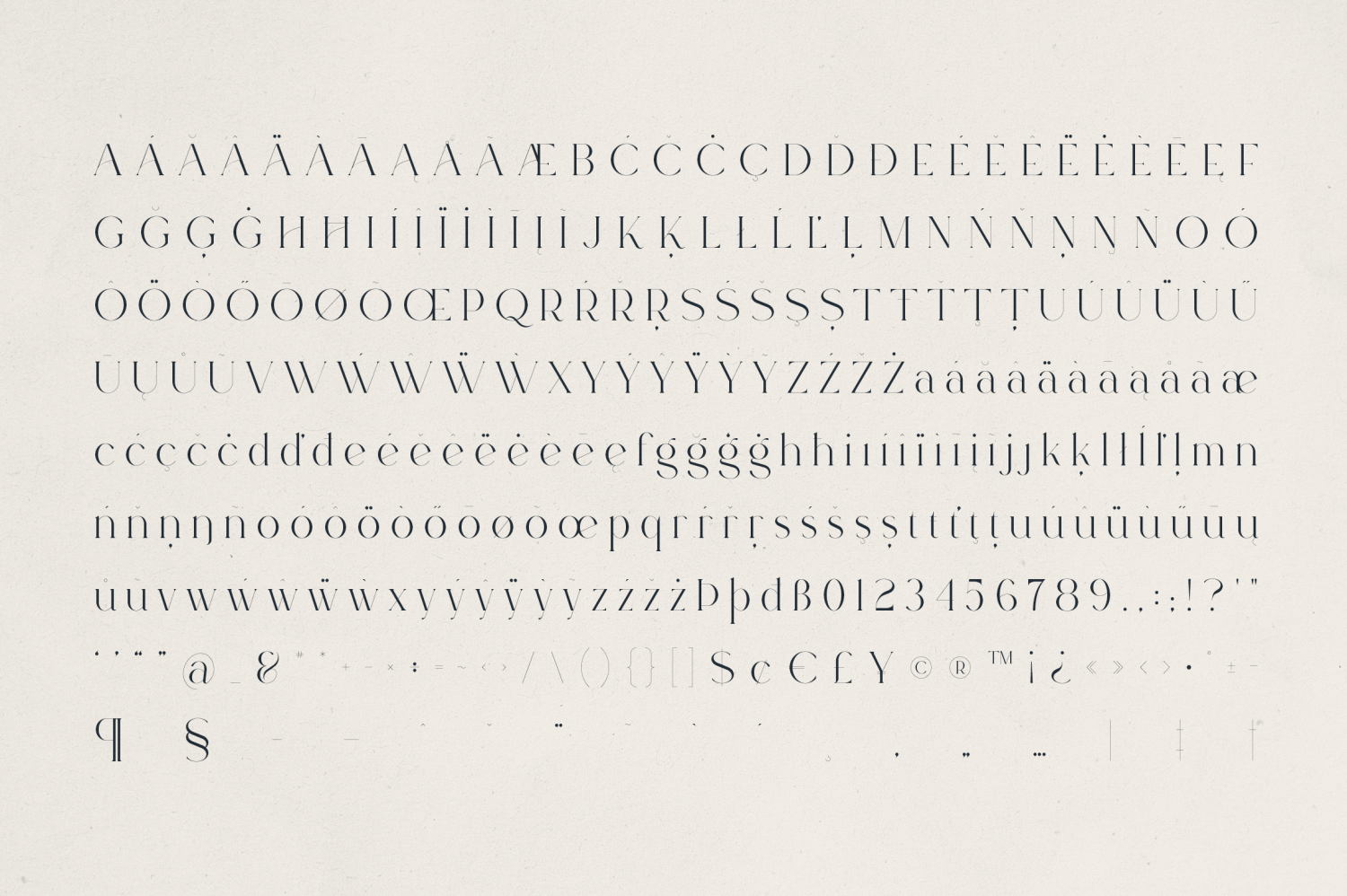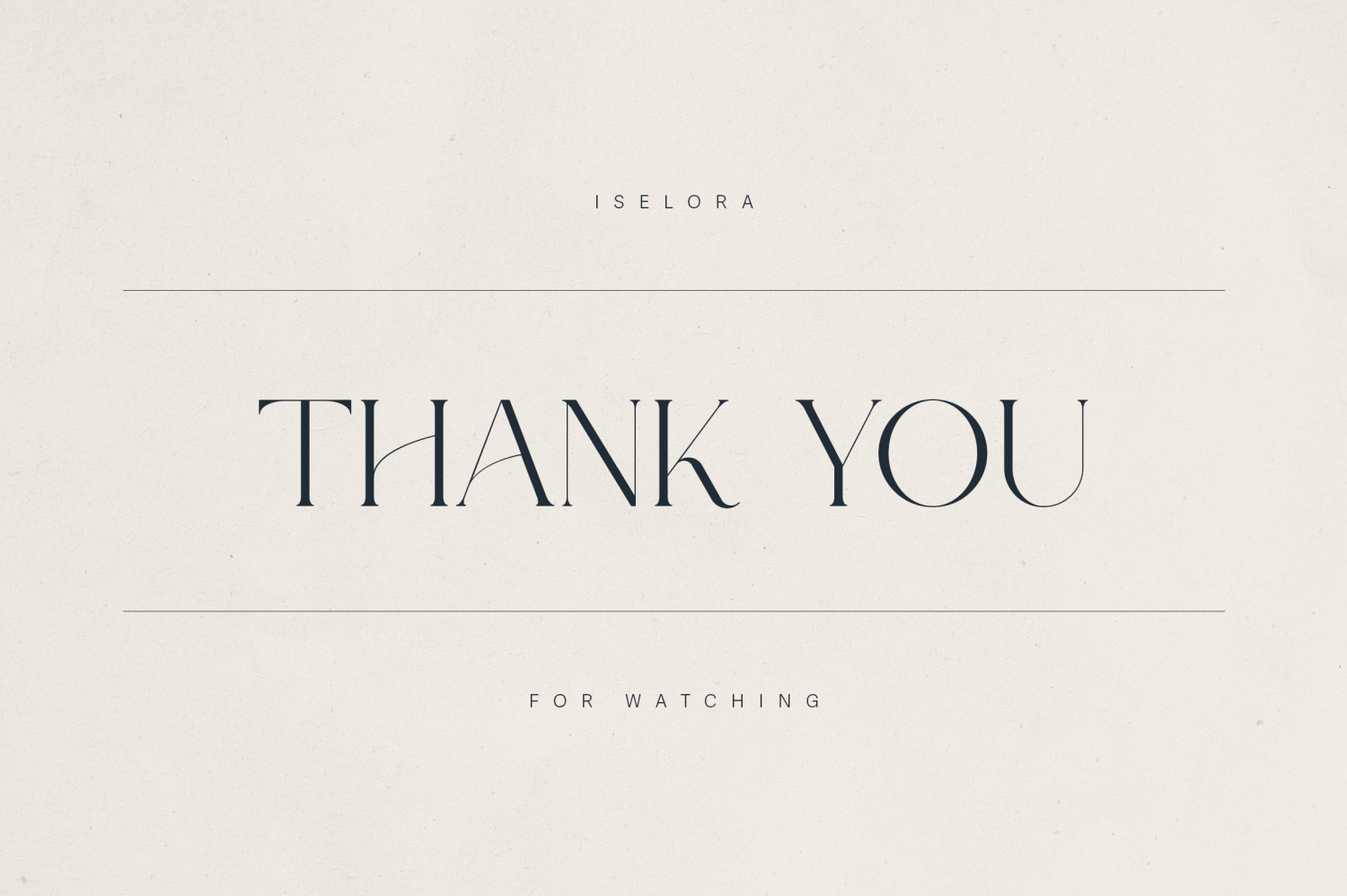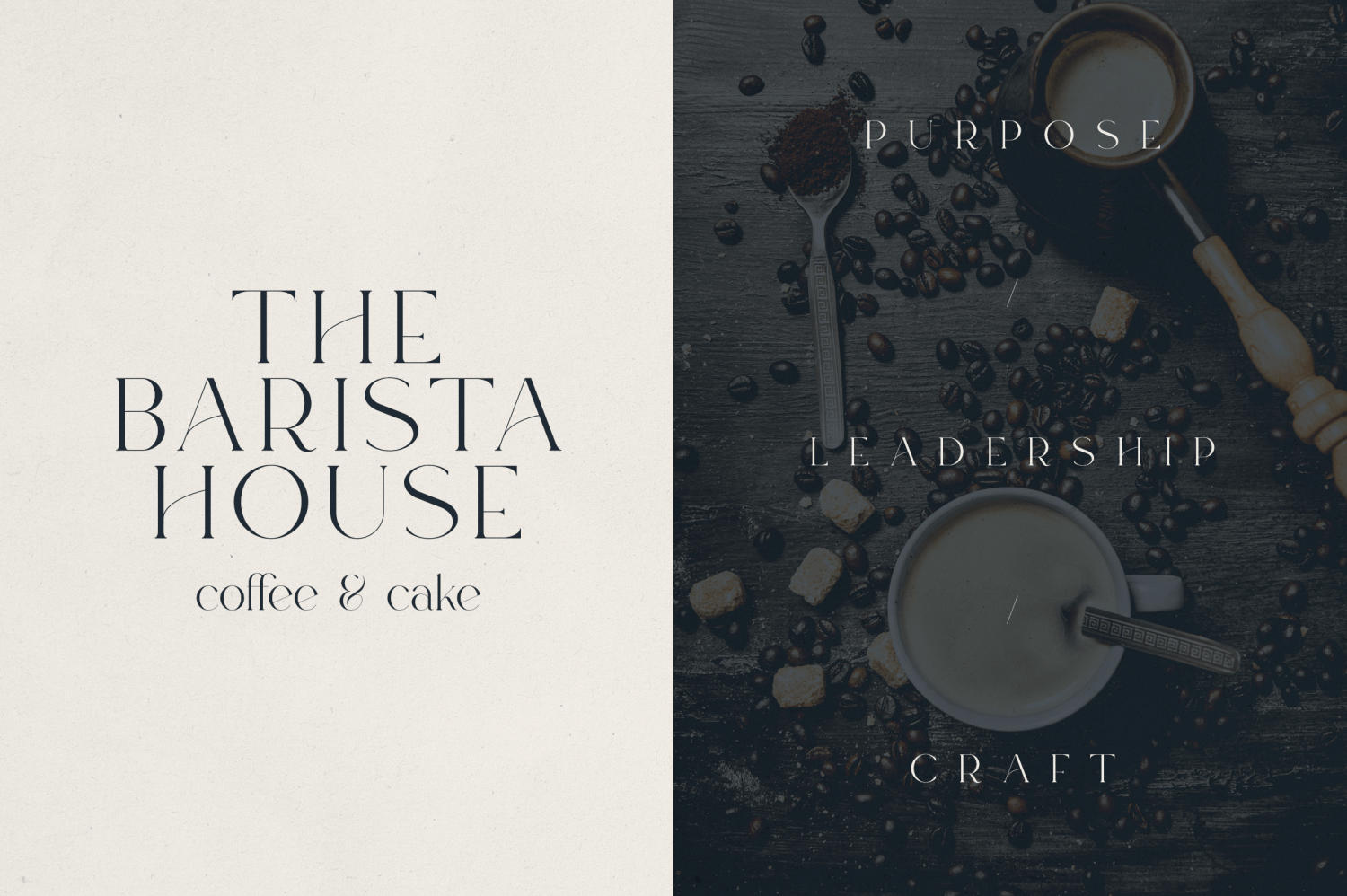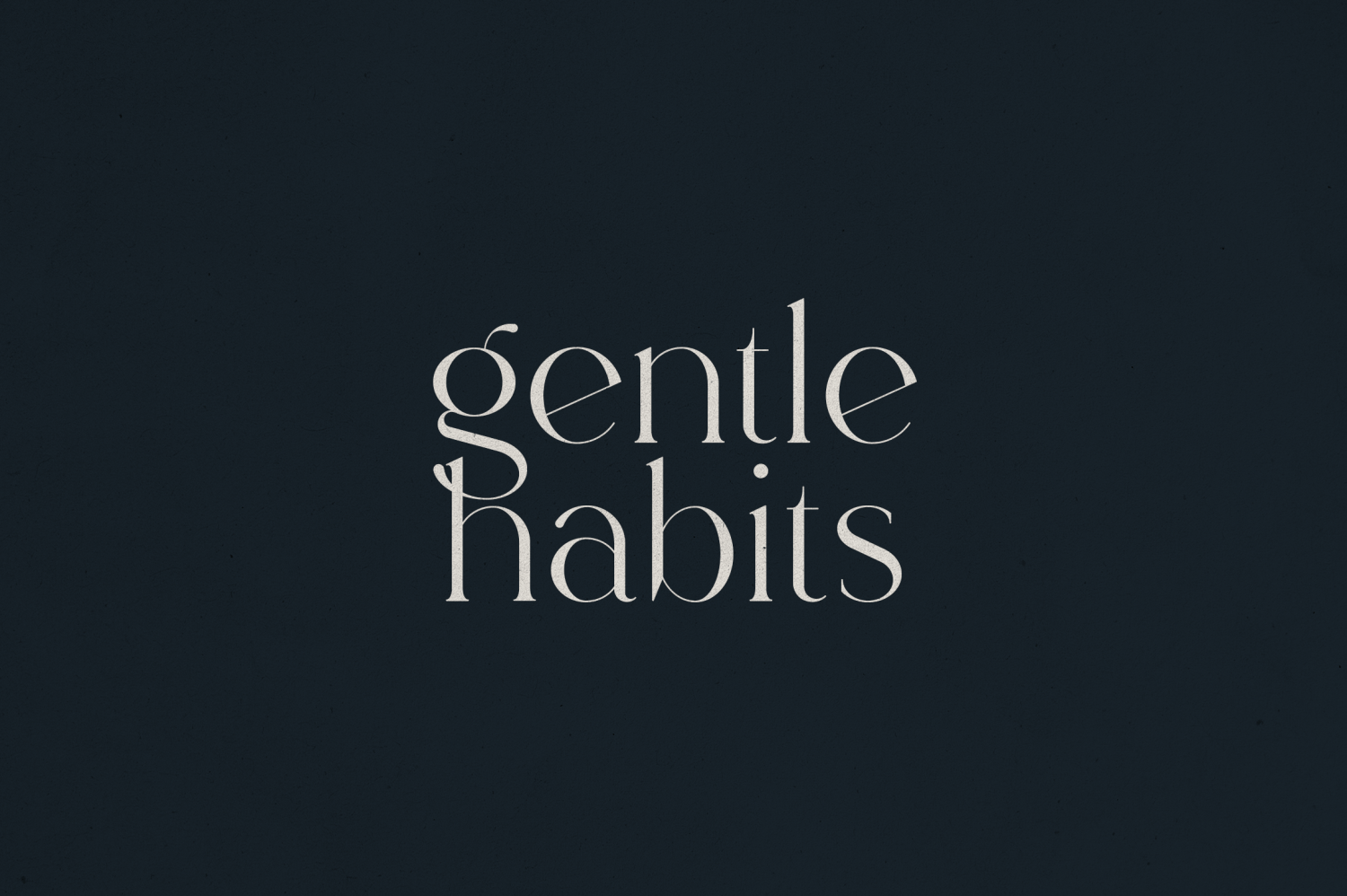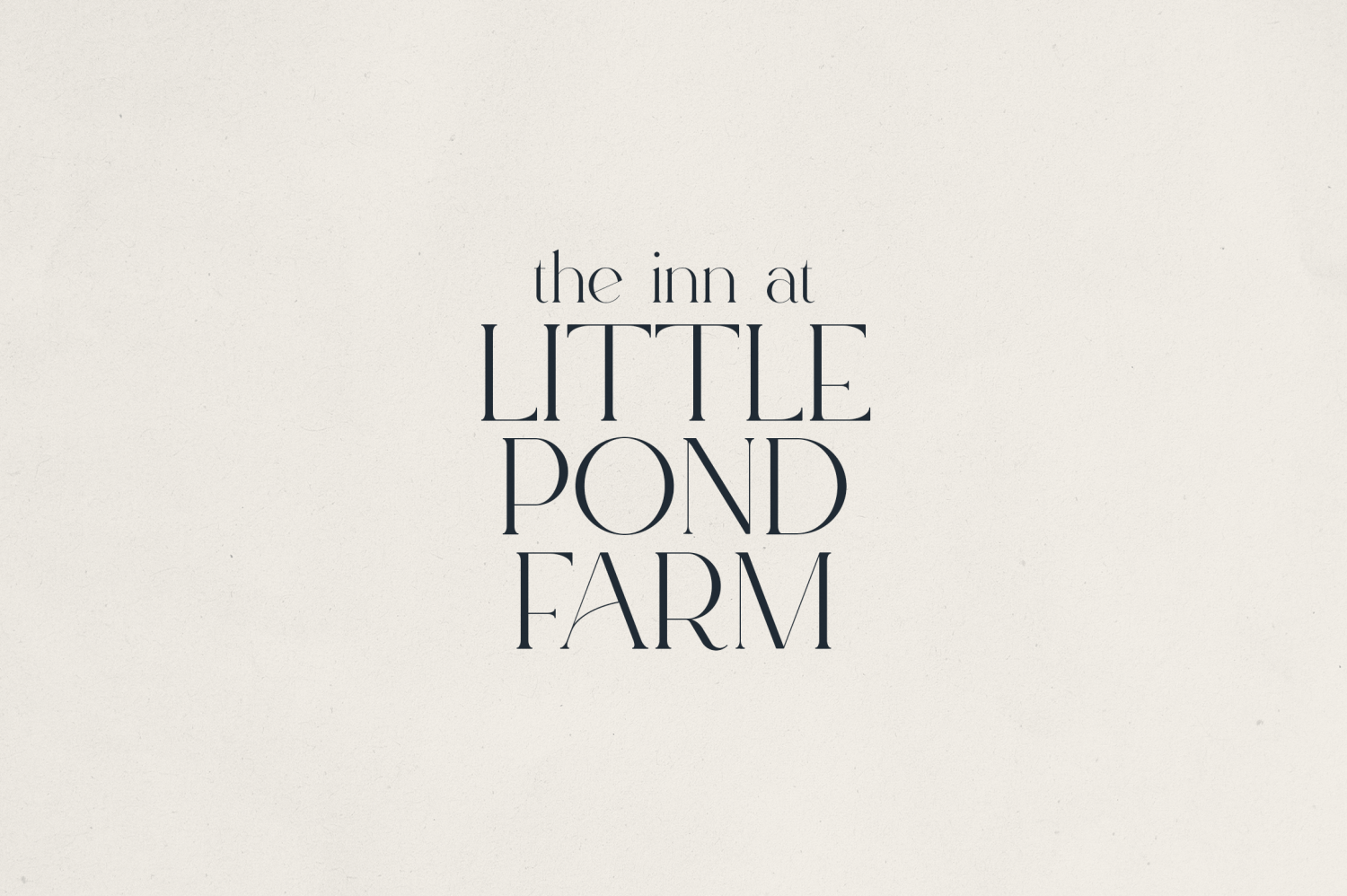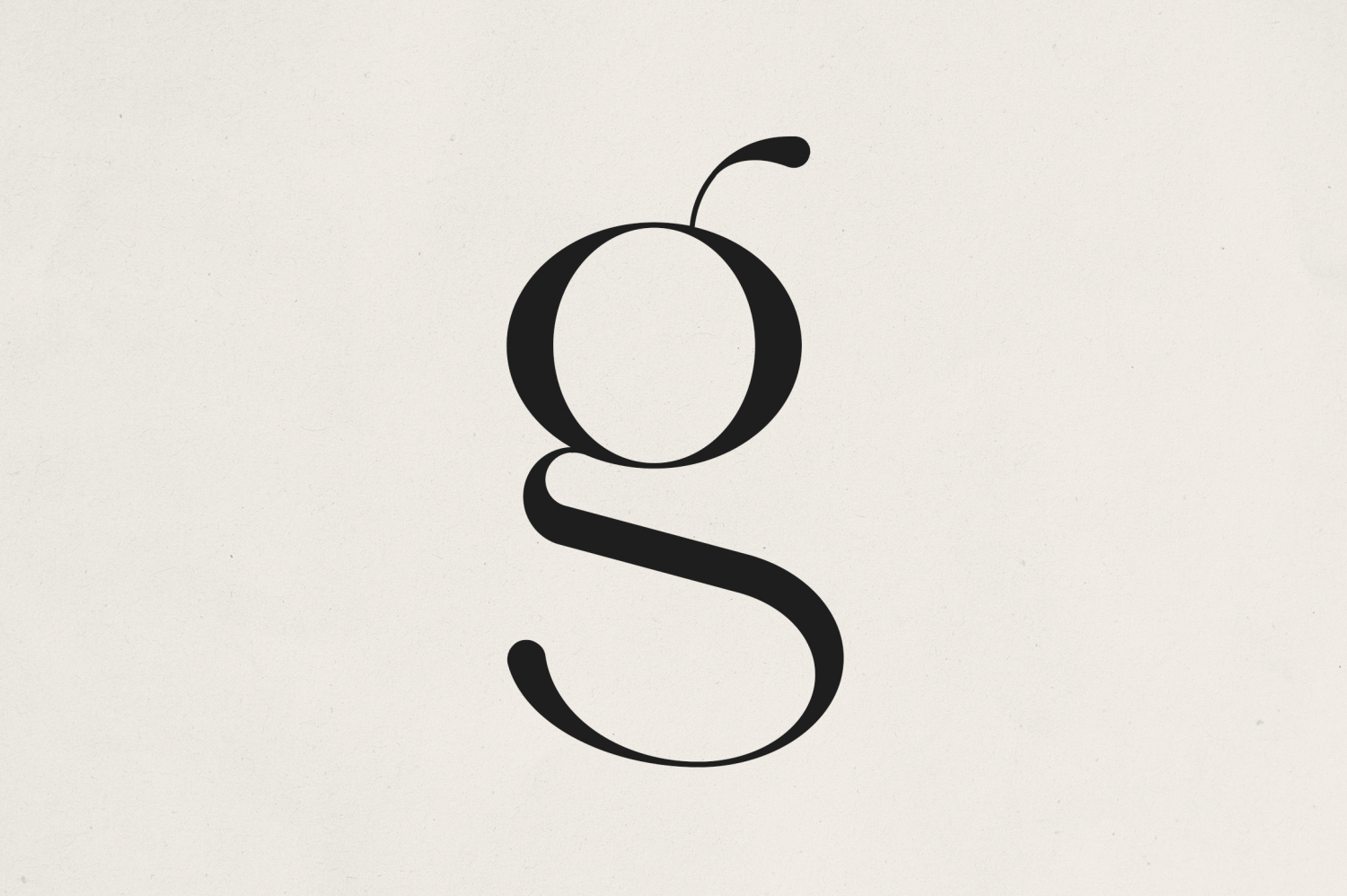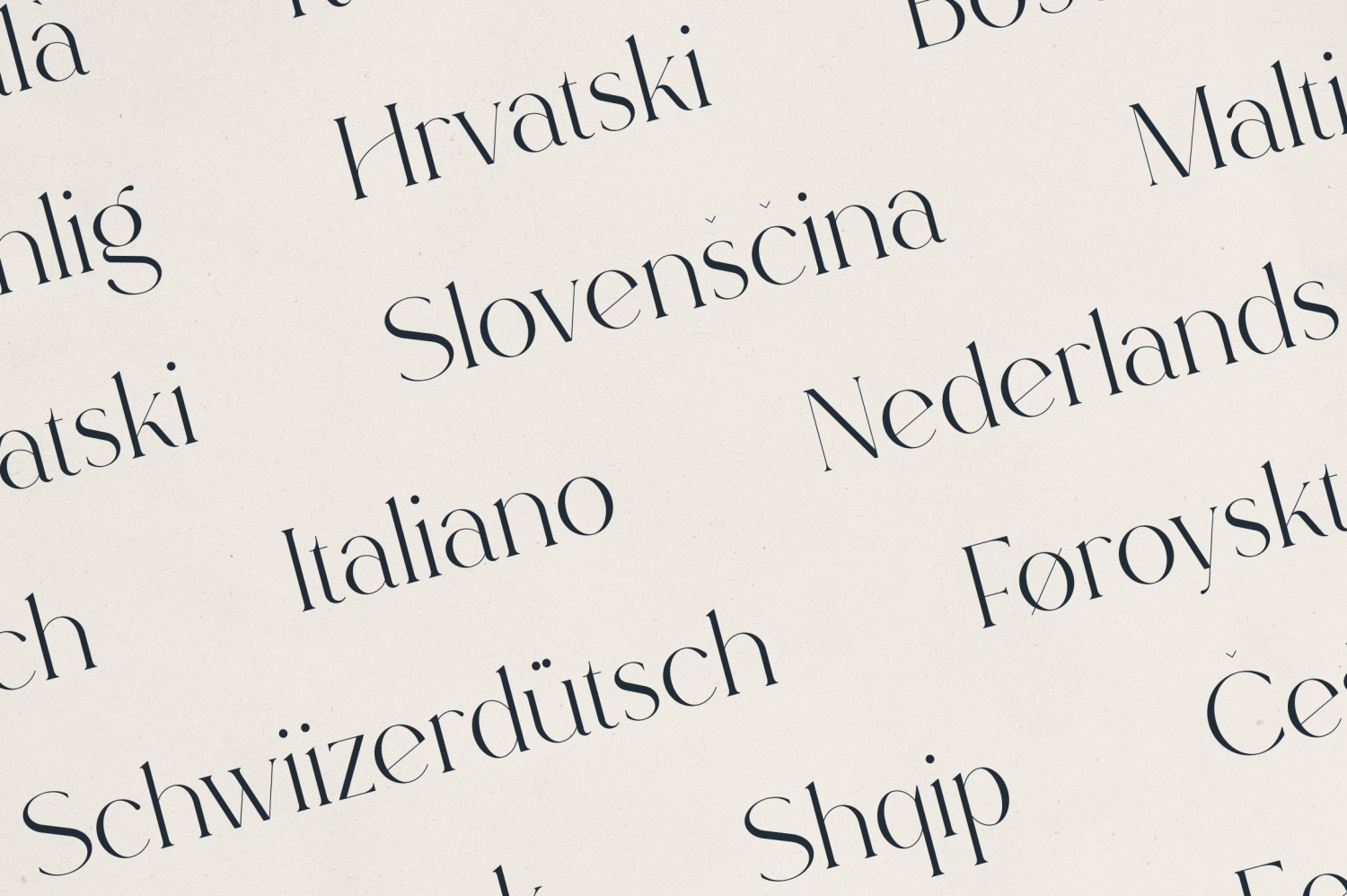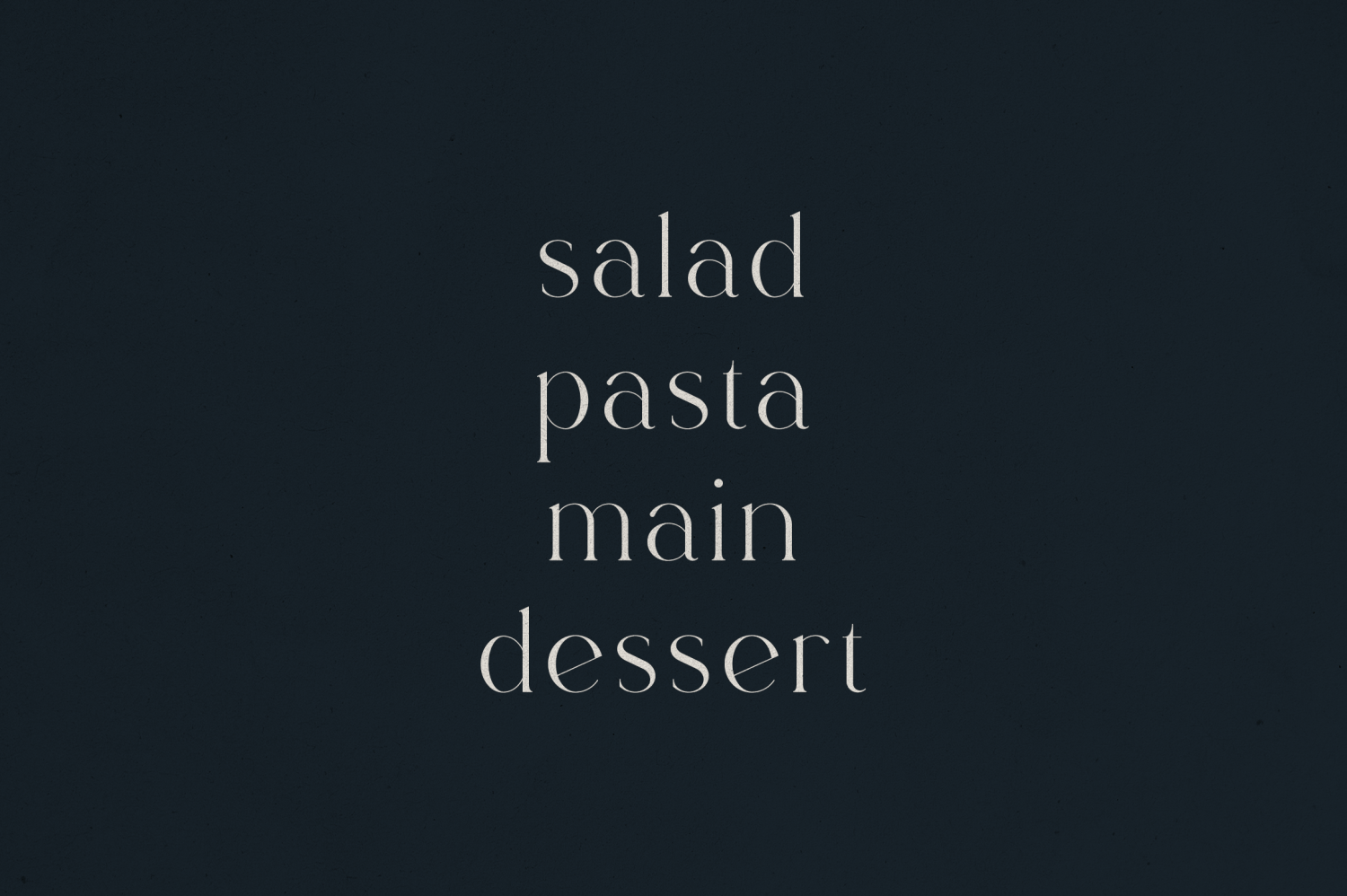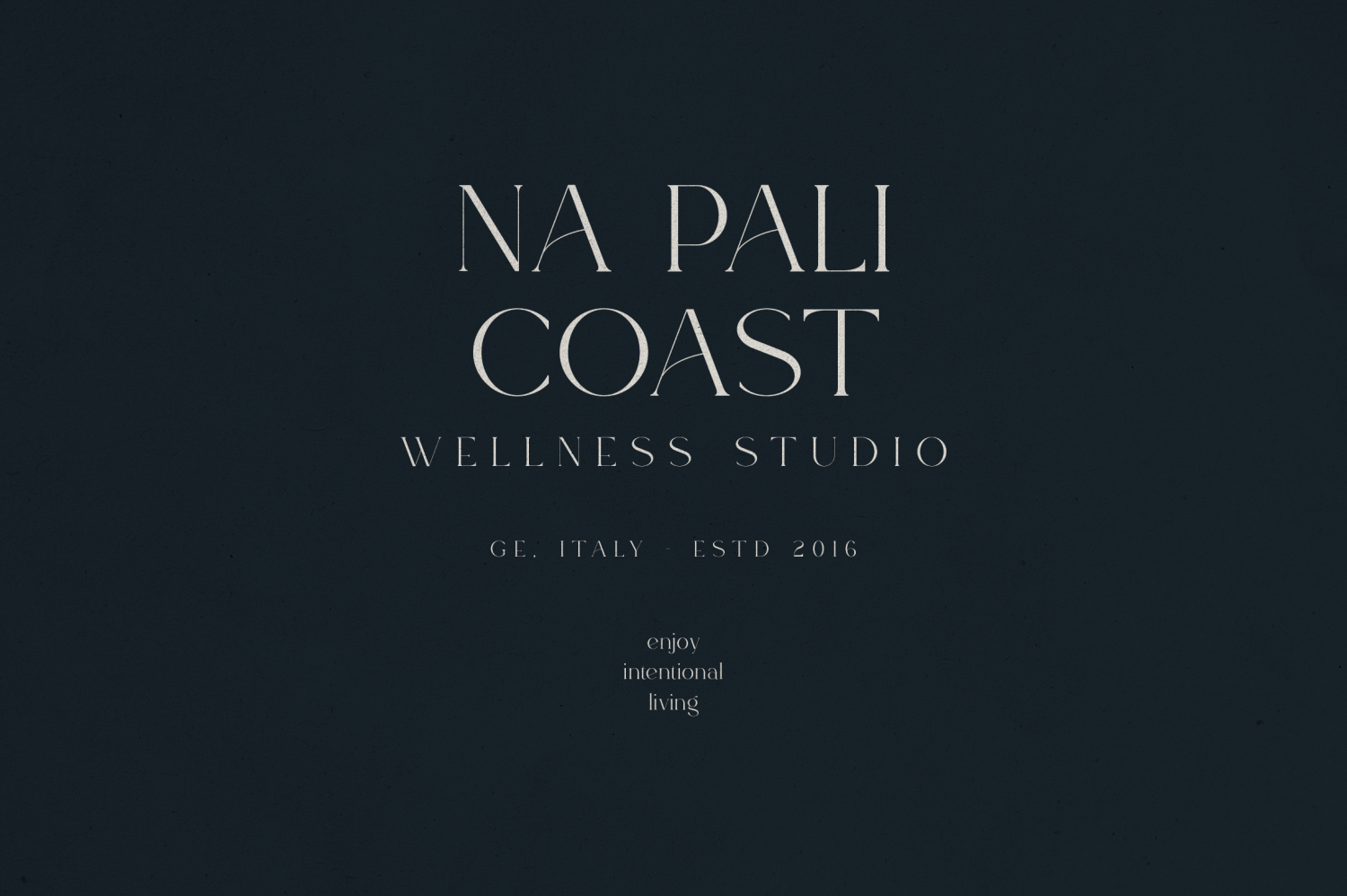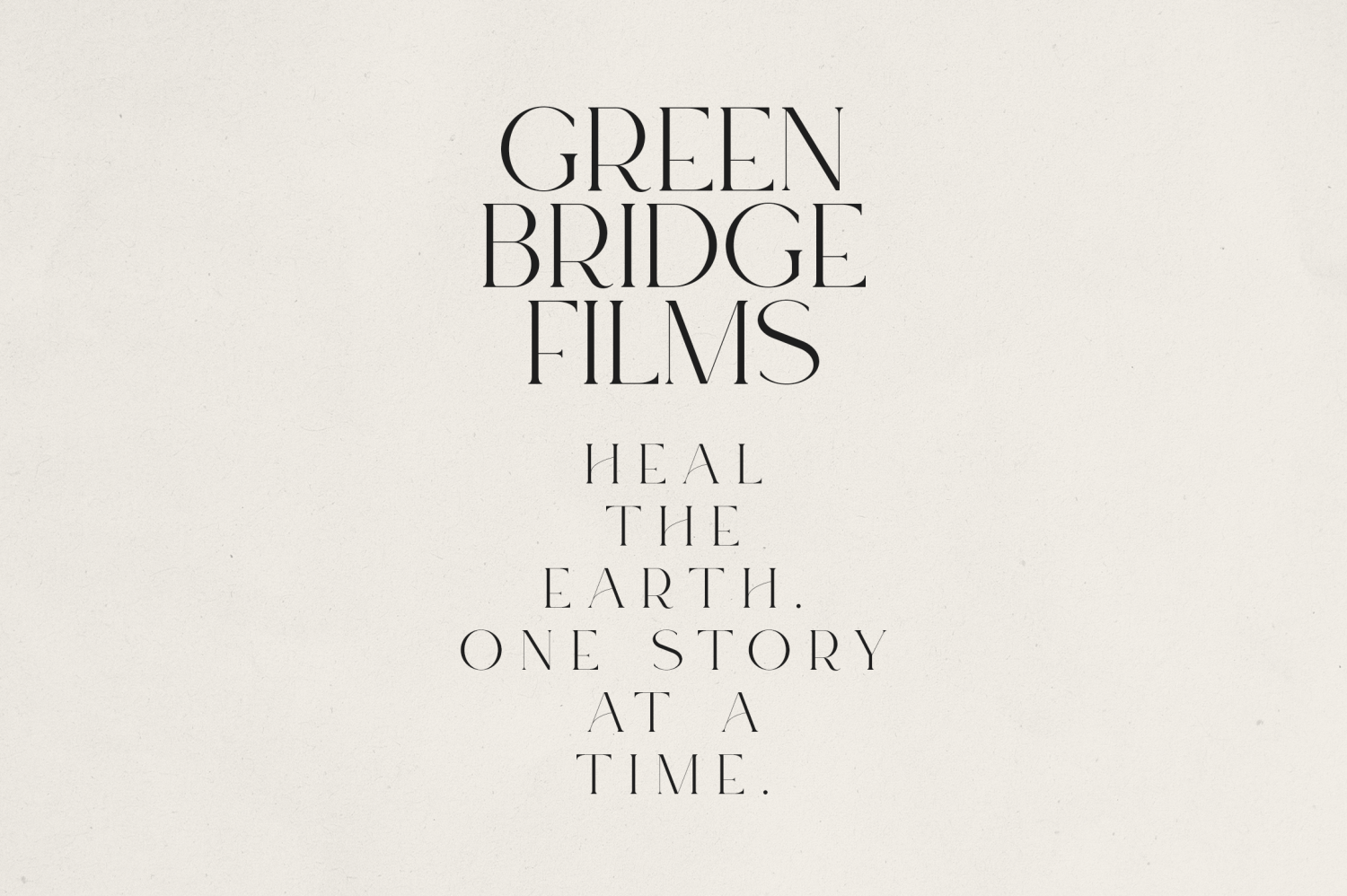
Iselora
Iselora – A Sophisticated Serif for Modern Elegance
Iselora is a high-contrast modern serif font that blends timeless elegance with subtle contemporary flair. With its delicate curves, sharp serifs, and refined details, Iselora evokes a sense of calm sophistication—ideal for brands, editorial layouts, wellness labels, lifestyle products, and elevated packaging design.
Iselora is crafted for those who appreciate artistry in typography. Whether used in logos, invitations, brand identities, or refined display titles, it brings a sense of poise and intentional beauty to every project.
Key Features:
• High-contrast modern serif with artistic flair
• Carefully designed glyphs
• Uppercase & lowercase with full punctuation
• Supports 80+ languages
• Ideal for luxury branding, editorial, fashion, hospitality, and wellness design